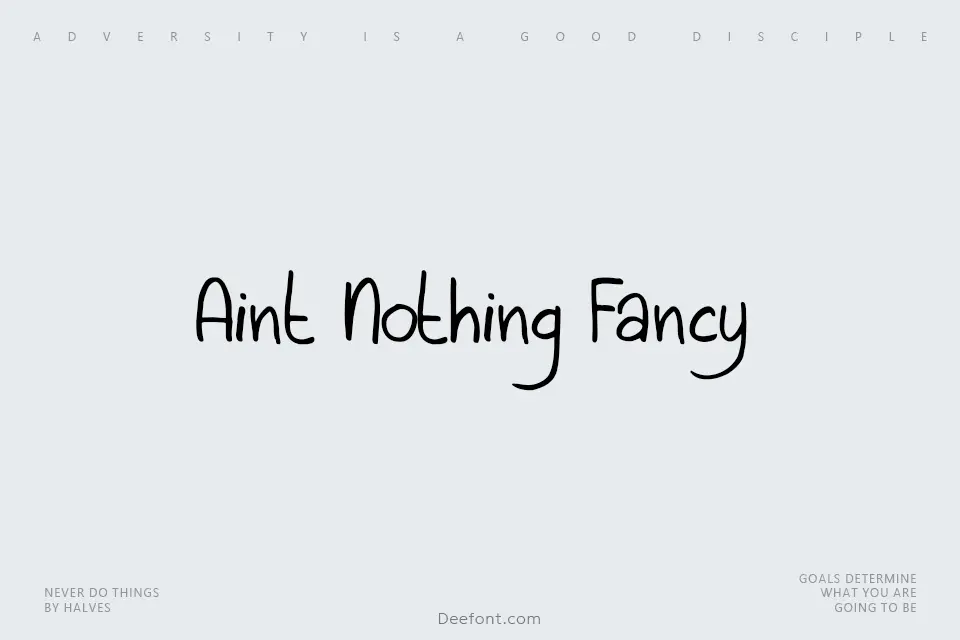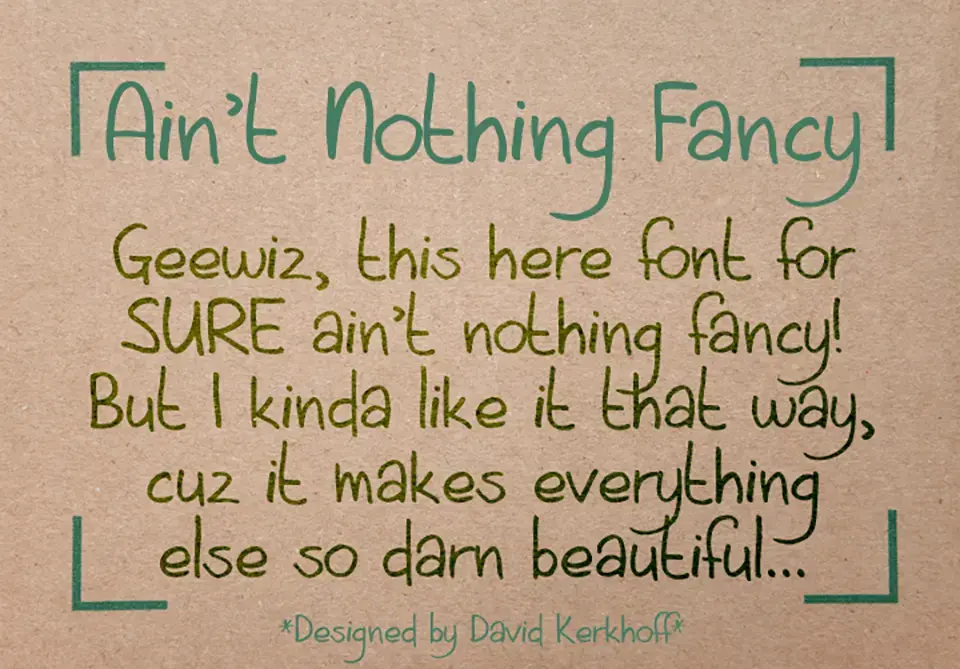
Aint Nothing Fancy Font
Aint Nothing Fancy is a charming handwritten script font featuring casual, flowing letterforms with organic stroke variations that evoke a natural pen-drawn aesthetic. The font’s relaxed personality makes it ideal for personal projects, greeting cards, posters, and decorative titles, though the demo version is restricted to personal use only. Its distinctive character works exceptionally well for creative applications requiring warmth and approachability.